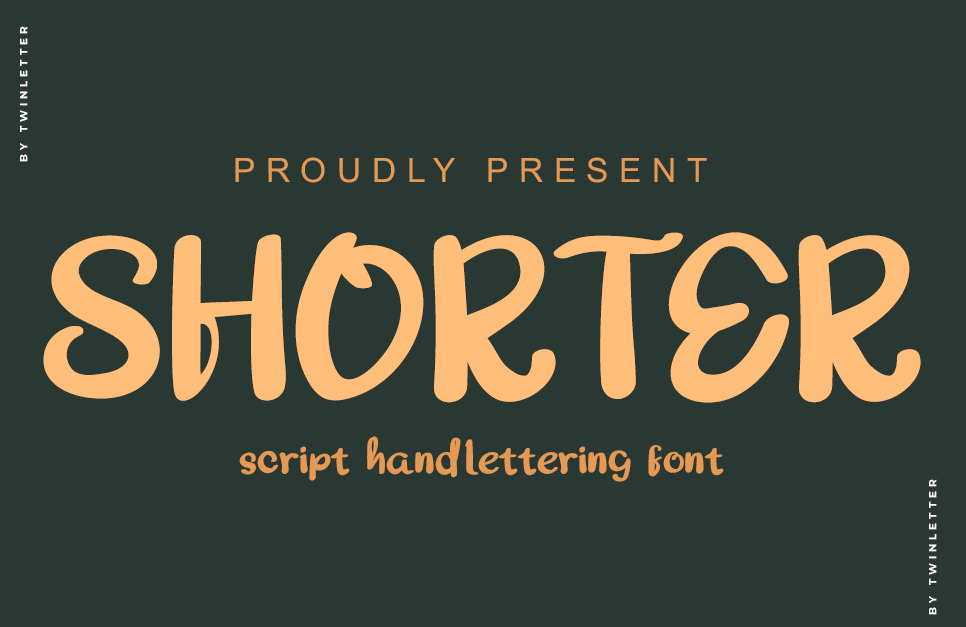
Shorter Font
Font Shorter retains all the high-definition details of the original handwritten letter. Using OpenType technology really looks realistic. Very useful for making your personal logo, title line, paragraph or brand. It's also suitable for cosmetic posters, fashion magazines, book covers, movie titles or simple quote designs. or whatever your other design needs. with a modern and fun style.